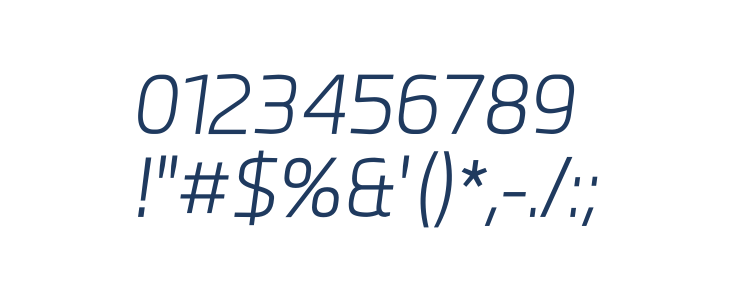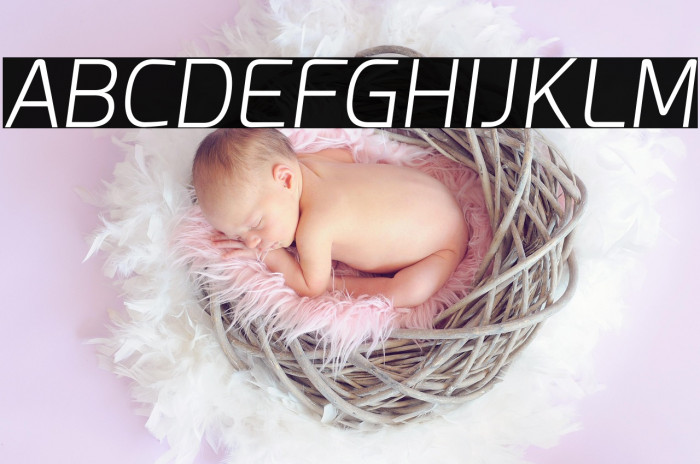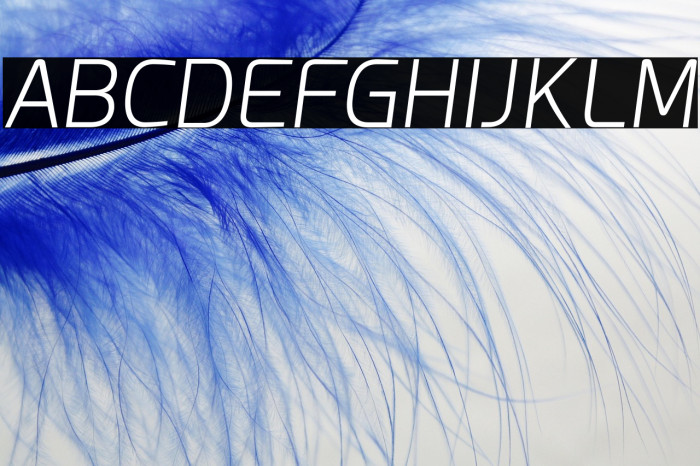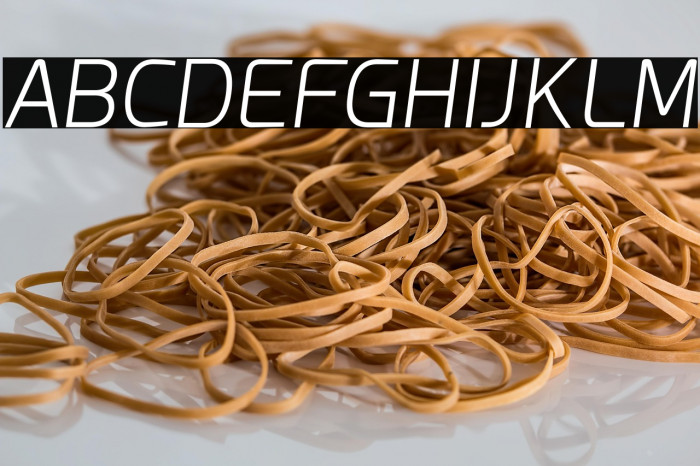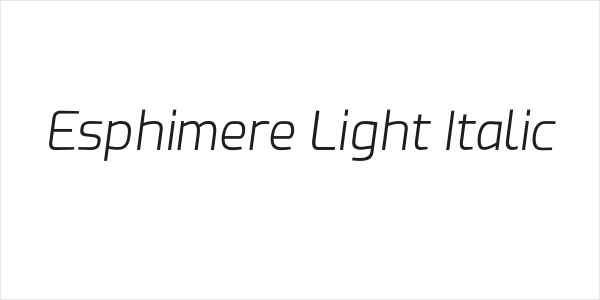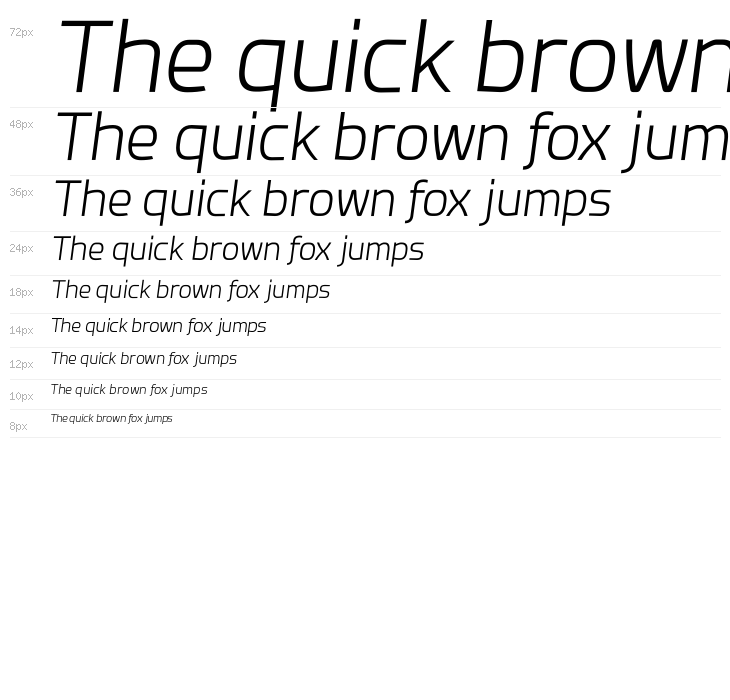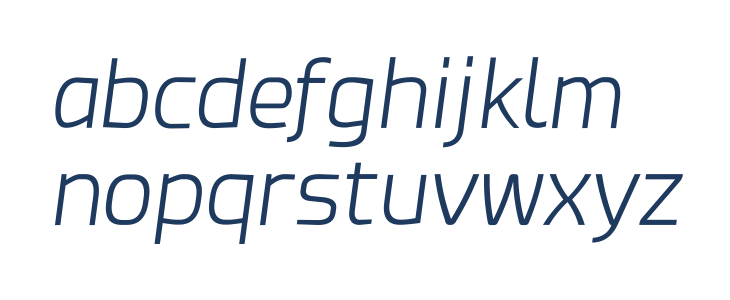
Esphimere Light Italic Font
Esphimere Light Italic Description
This font features a sleek and modern design with a light weight and italic style. The characters are slightly condensed, giving it a streamlined appearance. The strokes are consistent and smooth, with a medium contrast that adds a touch of elegance without being overly dramatic. The overall look is clean and professional, making it suitable for a variety of applications. The font includes a full set of uppercase and lowercase letters, numerals, and a range of special characters, ensuring versatility in design projects.
| Proposed Projects | Ideal for modern branding, tech-related designs, sleek editorial layouts, and stylish web interfaces. |